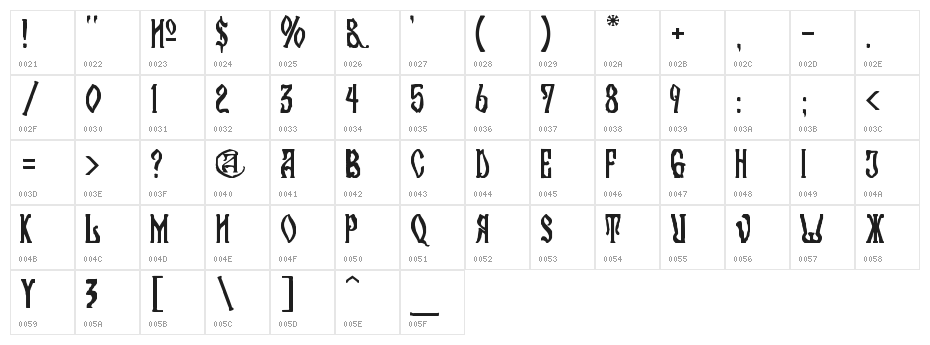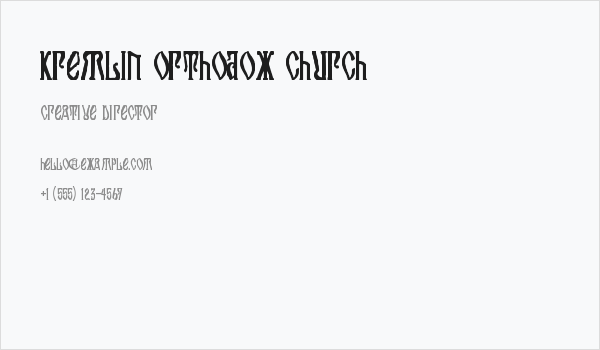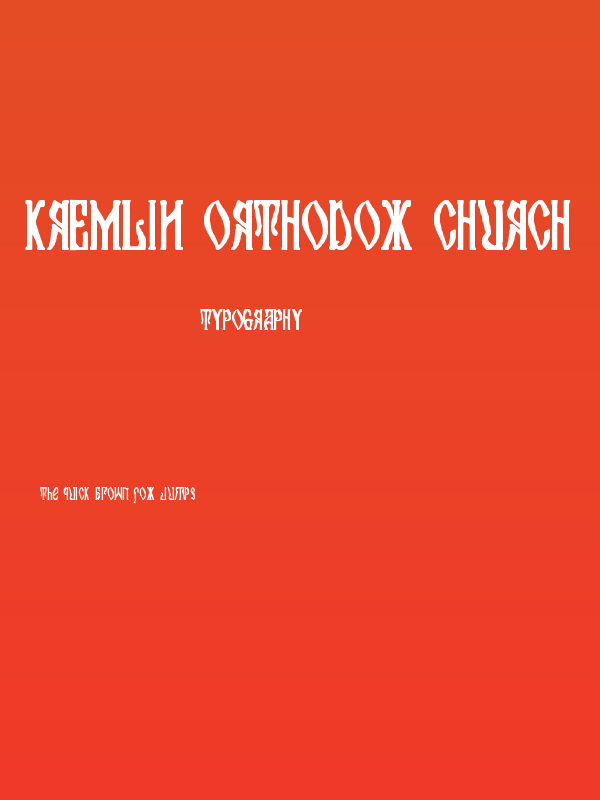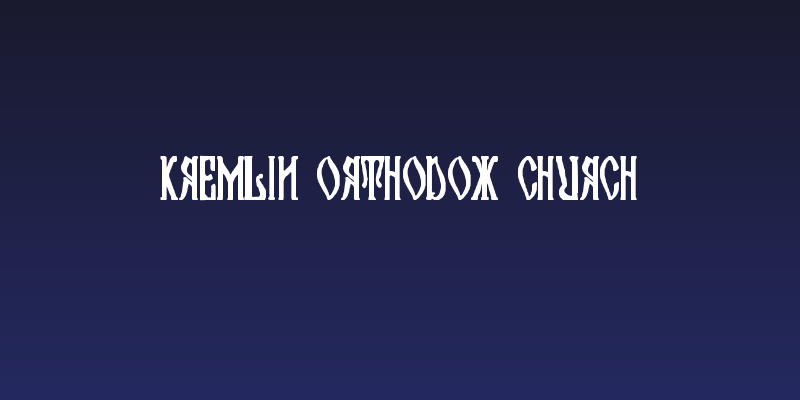
Kremlin Orthodox Church Font
Kremlin Orthodox Church Description
This font features a distinctive, ornate style reminiscent of traditional Eastern European and Russian design elements. The characters are bold and have a strong presence, with intricate detailing that suggests a historical or cultural influence. The uppercase and lowercase letters maintain a consistent style, with angular lines and decorative flourishes that evoke a sense of grandeur and formality. The numerals and special characters are equally elaborate, ensuring a cohesive look across all text elements. This font's unique aesthetic makes it suitable for projects that require a touch of historical or cultural authenticity.
| Proposed Projects | Ideal for cultural or historical projects, event posters, book covers, or branding that requires a traditional or formal touch. |